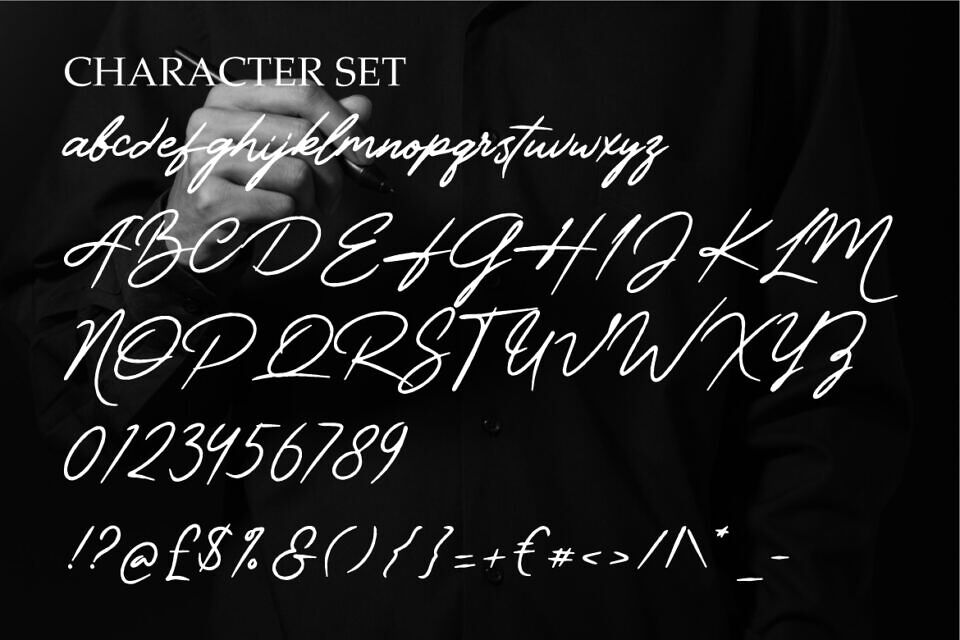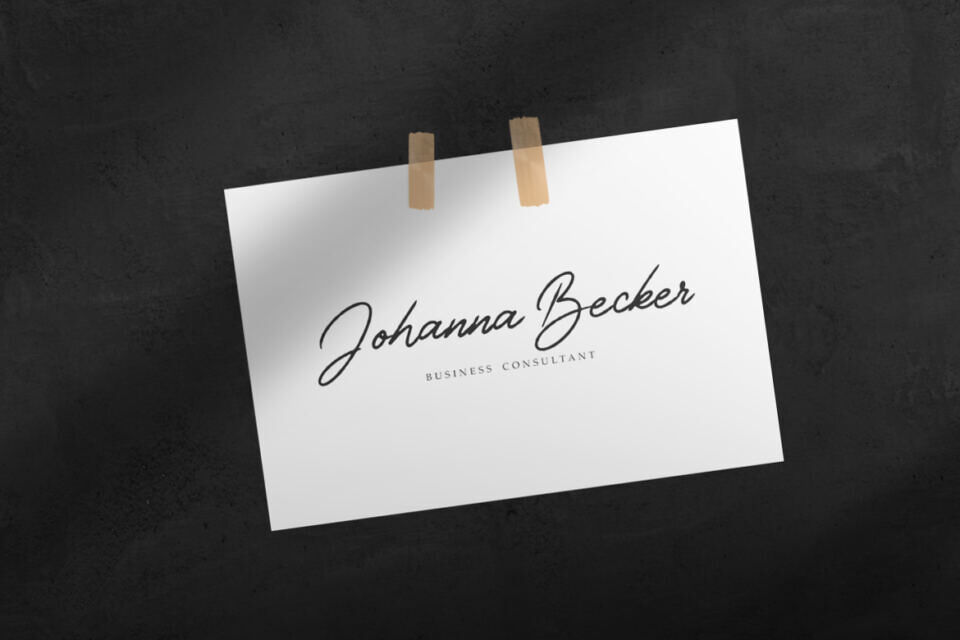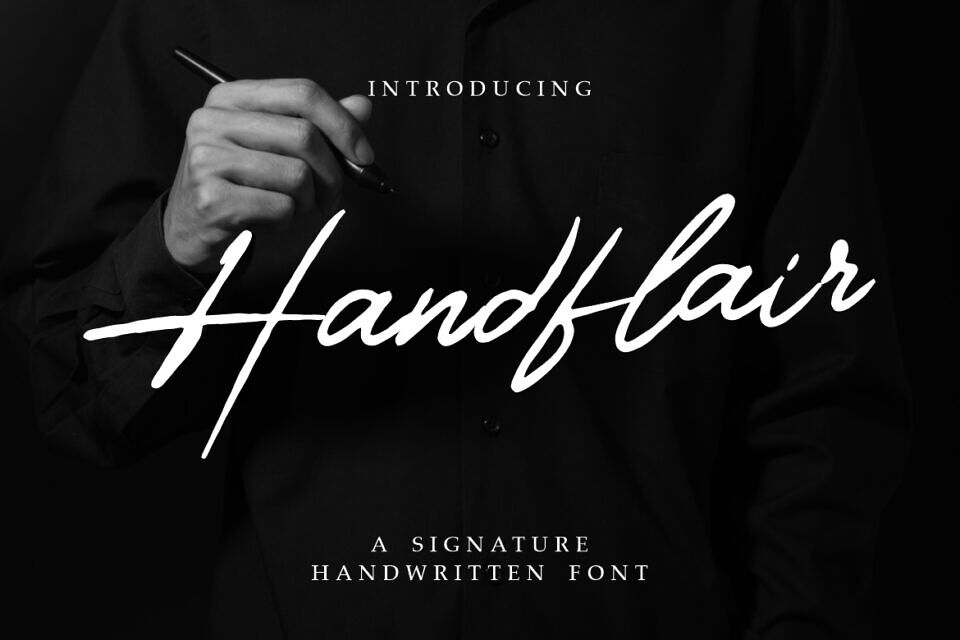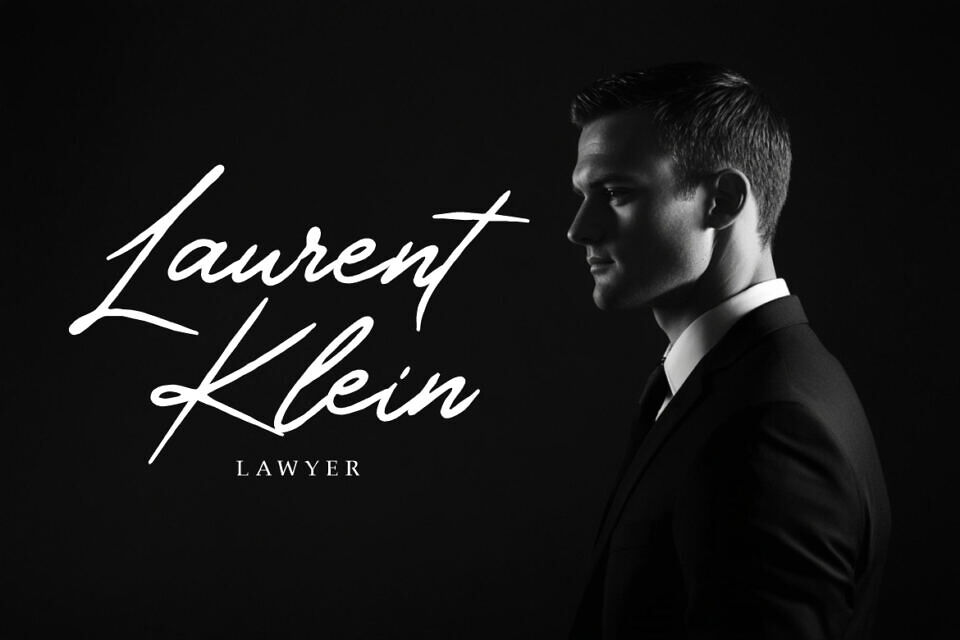
Handflair Font
Handflair Signature is a sophisticated handwritten typeface designed to capture elegance, personality, and refined charm. Its smooth, flowing strokes resemble authentic penmanship, making it ideal for projects that require a touch of exclusivity and professionalism.
Each letter is crafted with natural curves and stylish connections, balancing modern simplicity with luxury. The font’s graceful appearance ensures versatility, working beautifully across both digital and print designs. From personal branding to luxury product packaging, Handflair Signature Font adds authenticity and flair to every project.